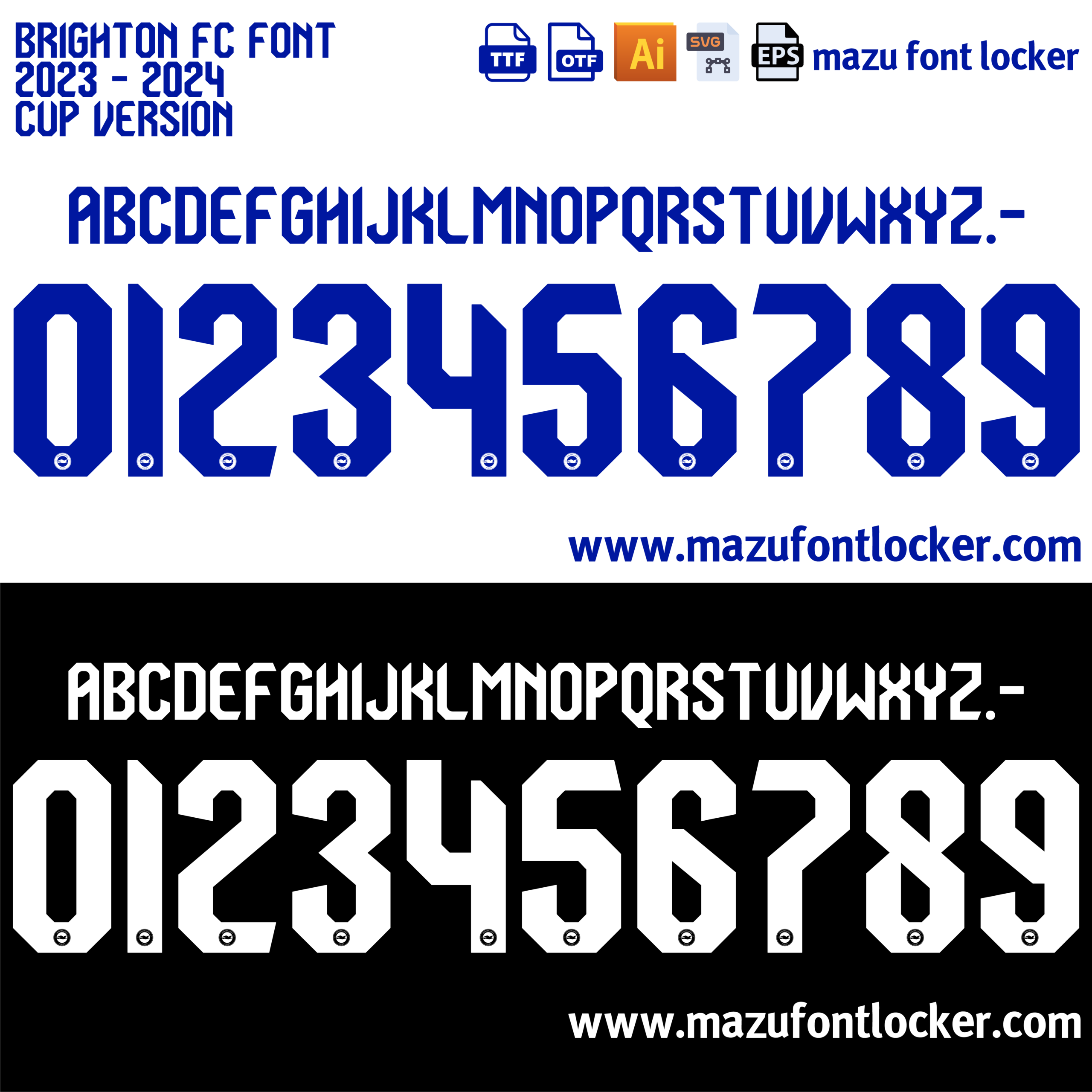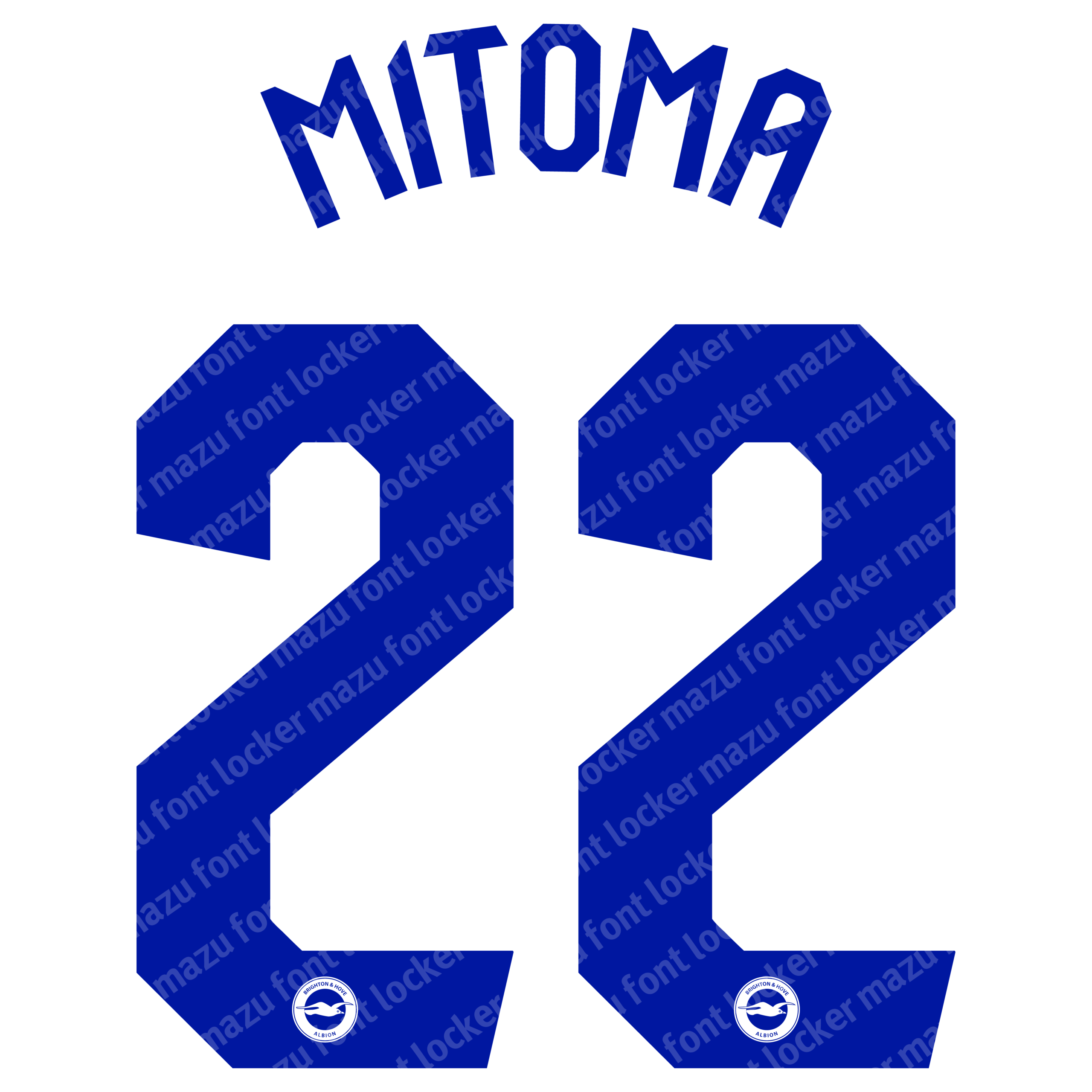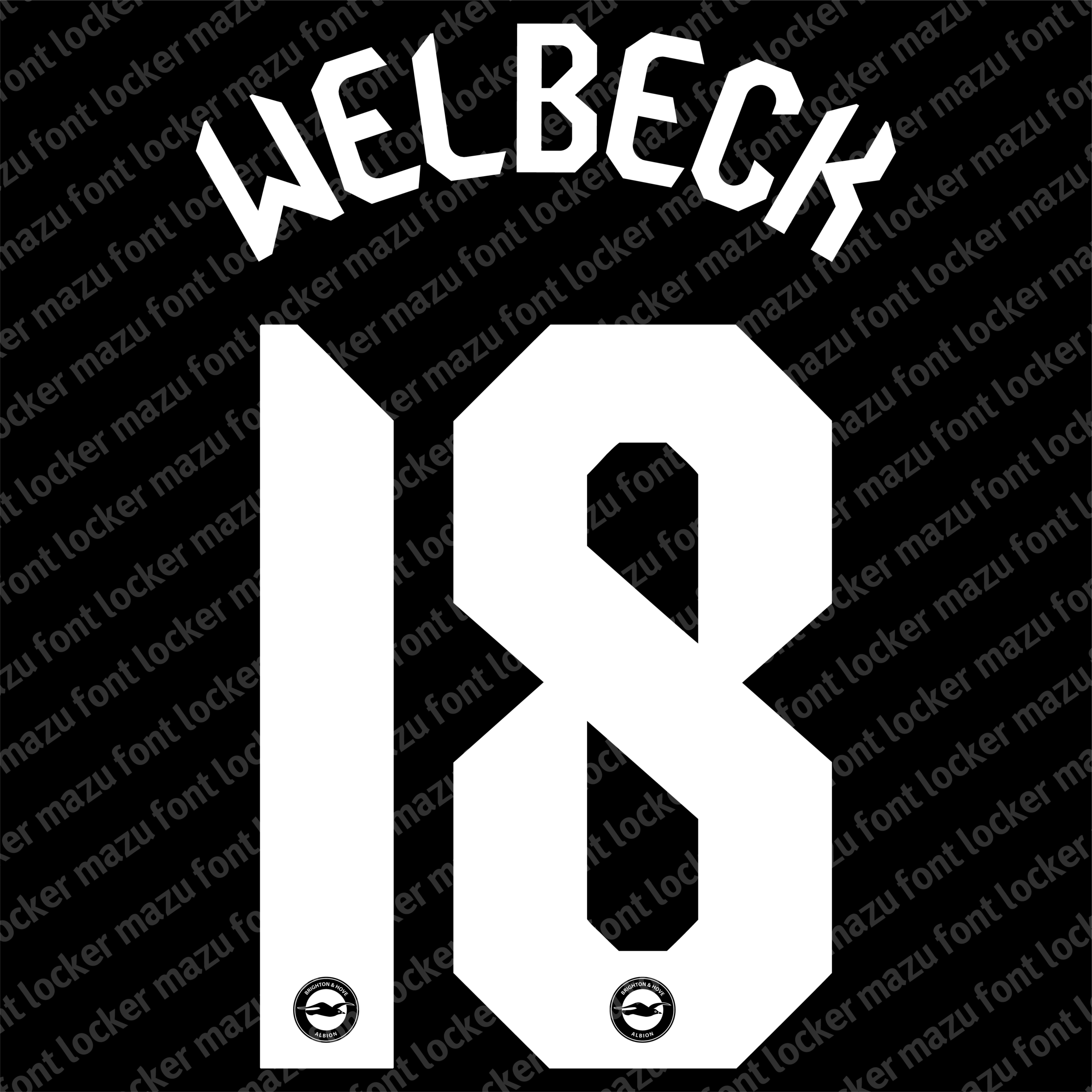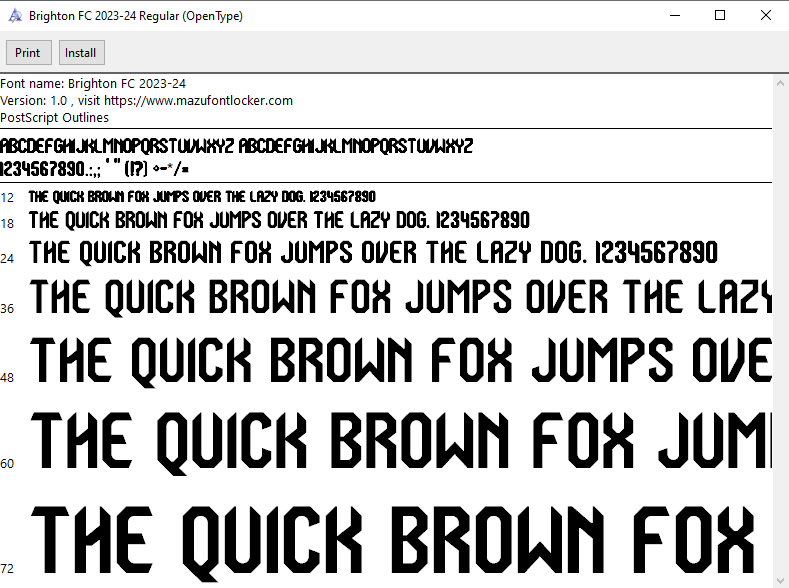
Brighton FC 2023-24 Font Vector
Brighton FC 2023-24 font, names and numbers, fully editable VECTOR file for customisation.
Complete design with the Brighton FC 2023-24 numbering and lettering for the Cup Competition Match.